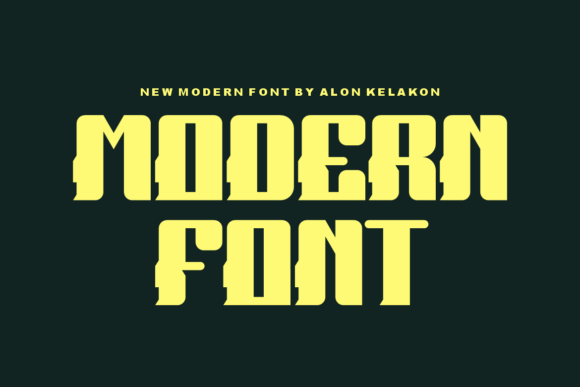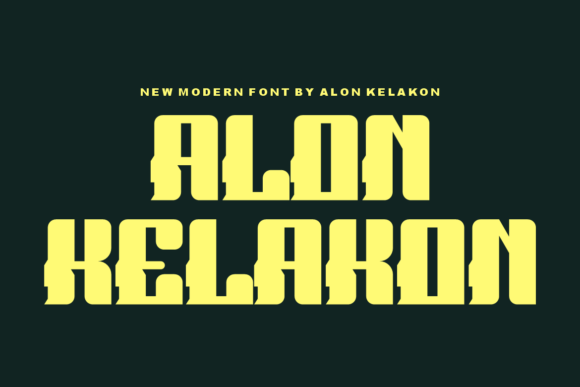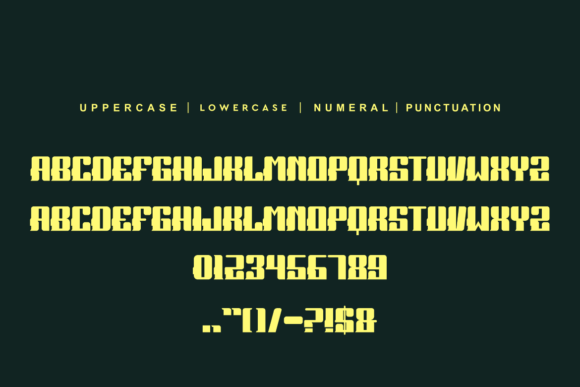
Introduction to Regyman Font
As designers, we’ve all been there – staring at a blank canvas, trying to bring our creative vision to life. The perfect font can be the game-changer that makes all the difference. For those looking to add a unique touch to their design projects, we’re excited to introduce the Regyman Font – a stunning slab serif that’s ready to elevate your creative project.
With its versatility and high-quality design, the Regyman Font is perfect for a wide range of applications, from labeling and clothing to movie scenes and poster designs. Whether you’re working on a free download project or a paid gig, this font is sure to impress. Its transparent background and high-quality design make it an excellent addition to any design resource.
As a valuable resource for designers, the Regyman Font offers endless possibilities for creative expression. From movie titles and album covers to logos and more, this font is the perfect choice for anyone looking to add a touch of sophistication and style to their design projects.
Key Features of Regyman Font
- High-quality design resource suitable for creative projects, offering a unique and stylish aesthetic.
- Includes a transparent background, allowing for easy integration with various design elements.
- Includes 1 font style with 1 weight, providing a versatile and elegant design solution.
Honest Review: Regyman Font
As a designer, I’m always on the lookout for high-quality design resources to elevate my creative projects. Recently, I had the chance to try out the Regyman Font, and I’m excited to share my honest review.
What works well: ✨ The Regyman Font is incredibly versatile, making it perfect for a wide range of design projects. I love that it comes with a transparent background, which gives me the flexibility to customize it to fit my design needs. The font is also beautifully designed, with clean lines and a modern aesthetic.
- ✨ High-quality design
- ✨ Versatile and easy to use
- ✨ Transparent background for customization
However, I do have a few limitations to note: ⚠️ While the Regyman Font is incredibly versatile, it may not be the best choice for very complex or intricate designs. Additionally, some users may find the font to be a bit too simple for their taste.
The Regyman Font is a high-quality design resource ideal for creative projects requiring a unique and stylish touch. With its transparent background, this font is perfect for designers looking to add a professional finish to their work.
Tips for Getting the Most Out of Regyman Font
To get the most out of the Regyman Font, experiment with different font sizes, colors, and combinations. Use it in conjunction with other design elements to create visually appealing and effective designs.
The Regyman Font is ideal for a variety of creative projects, including:
- Logos and branding
- Digital artwork and illustrations
- Social media graphics and posts
- Presentations and reports
- Publications and magazines